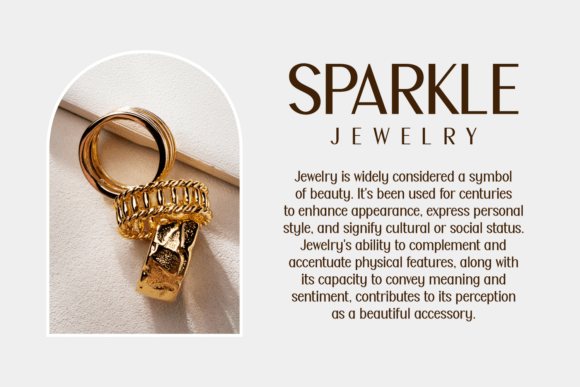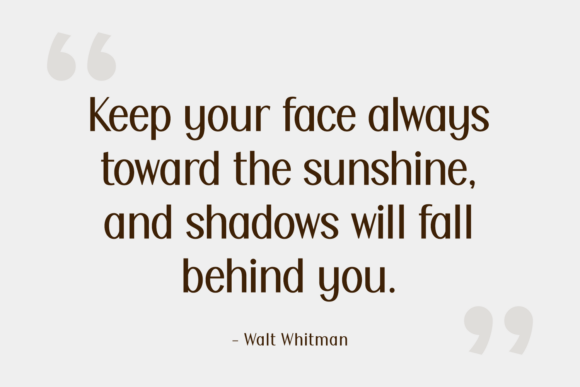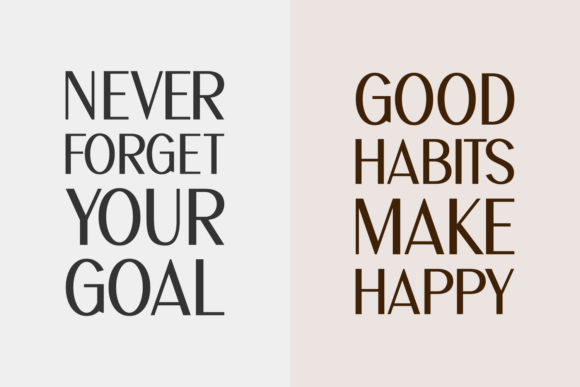
Introduction to Nominal Account Font
A promotional image for β€œNominal Account,” a simple sans serif font.
The font’s clean, clear, and versatile design makes it ideal for business branding, corporate communications, and financial-themed projects, fitting perfectly with the β€œback-to-business” feel of early autumn .